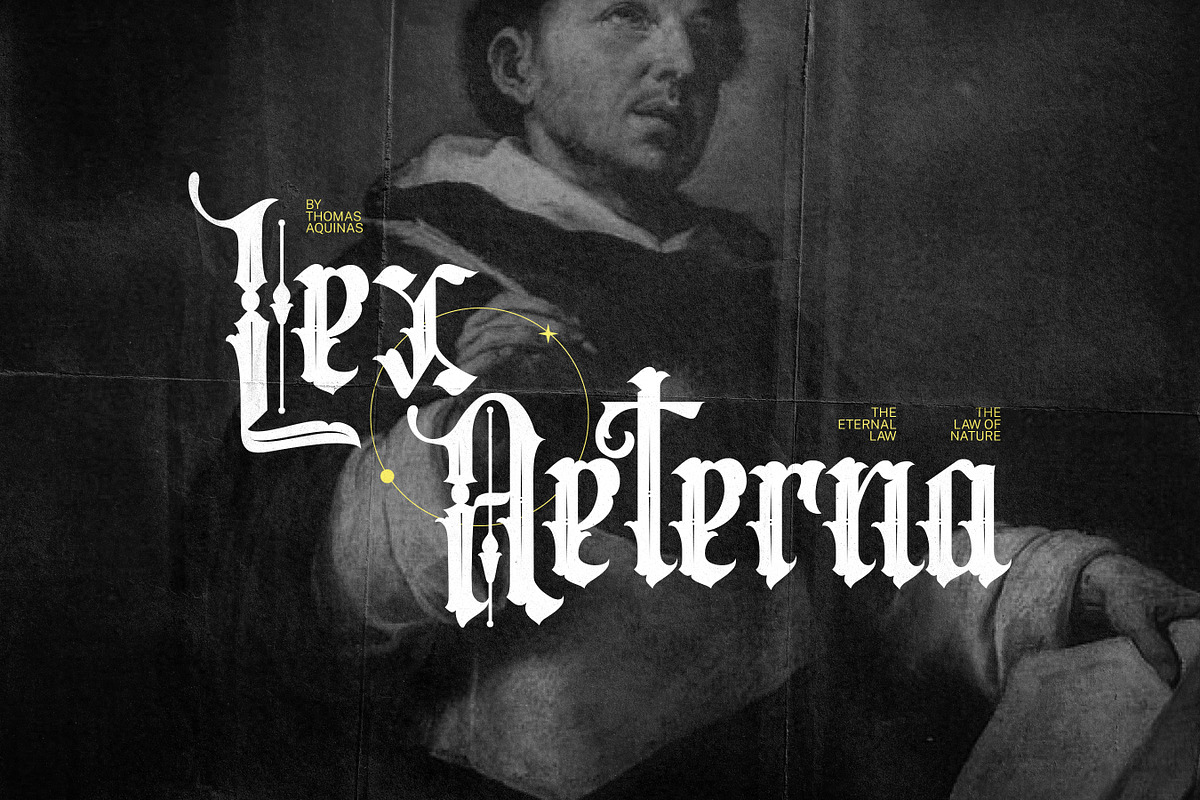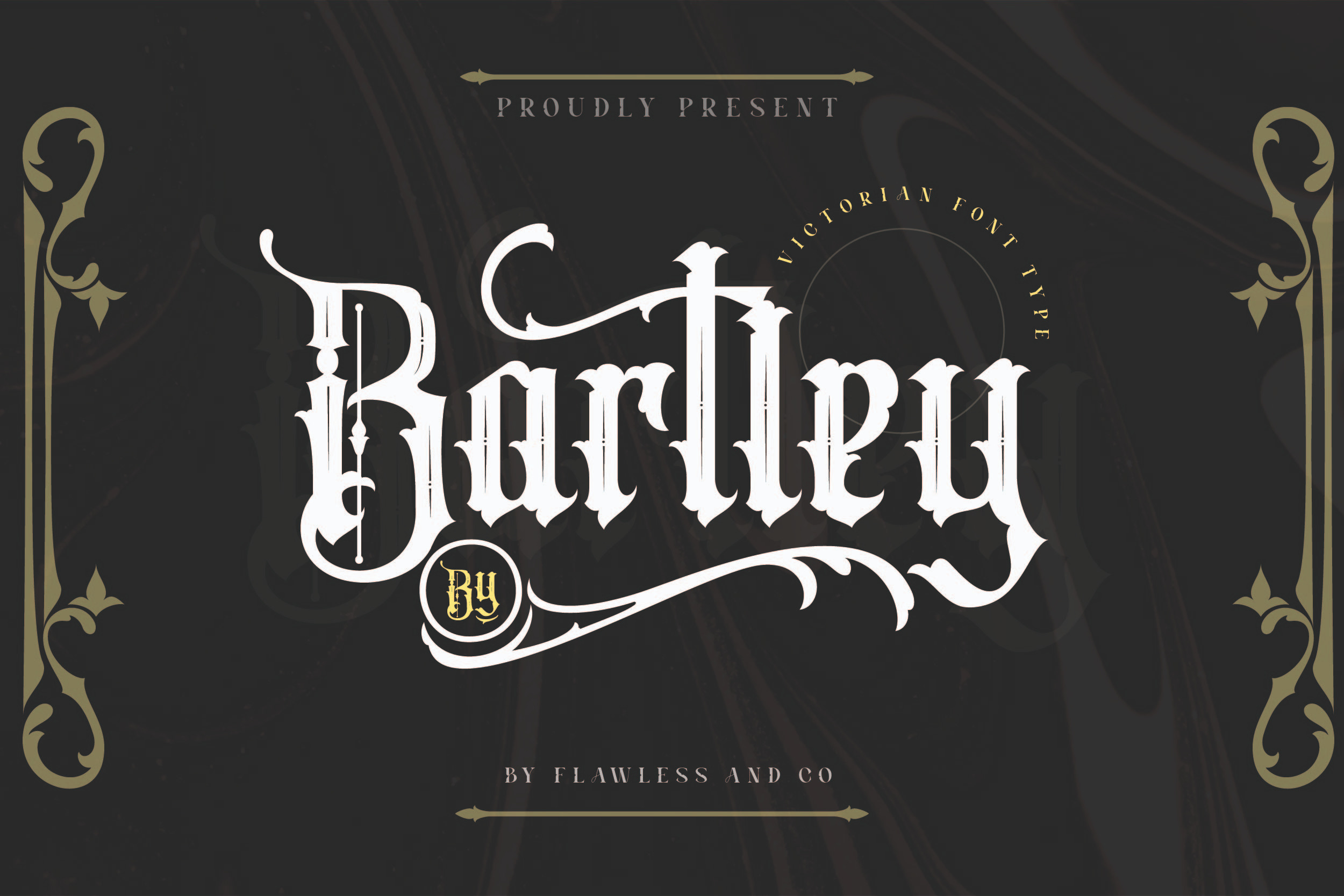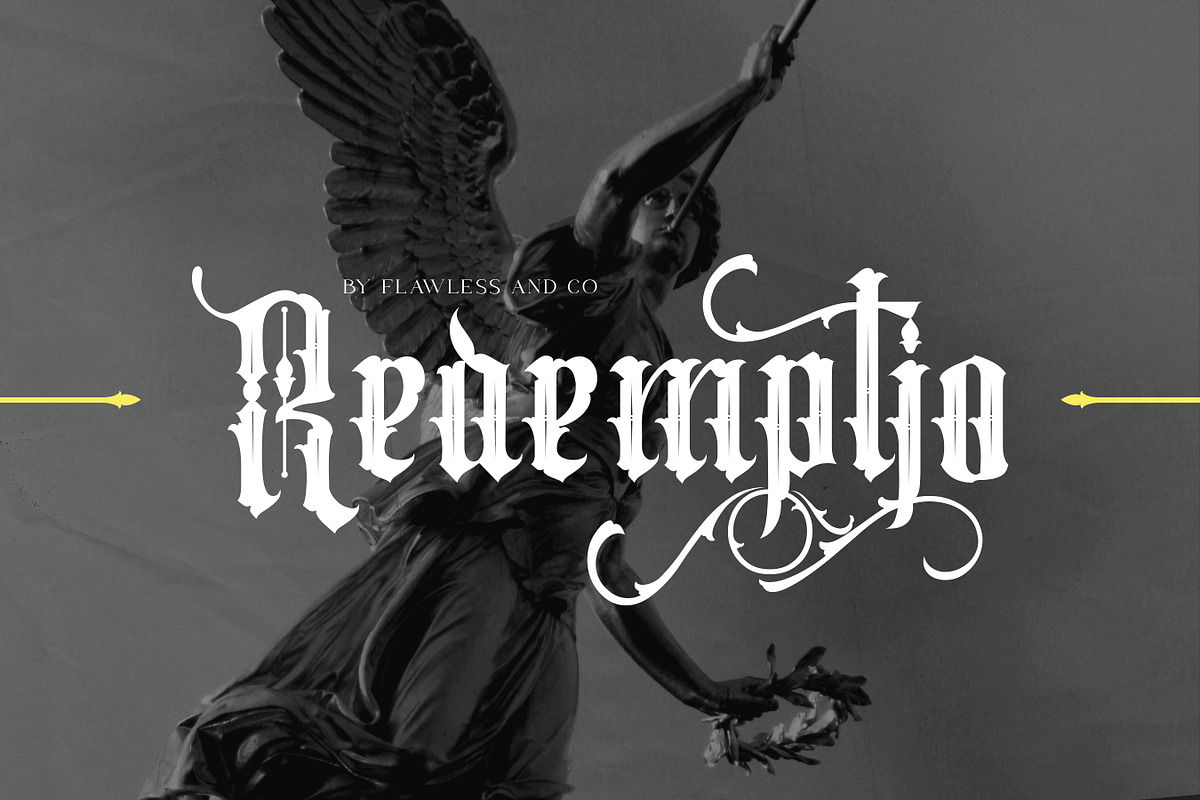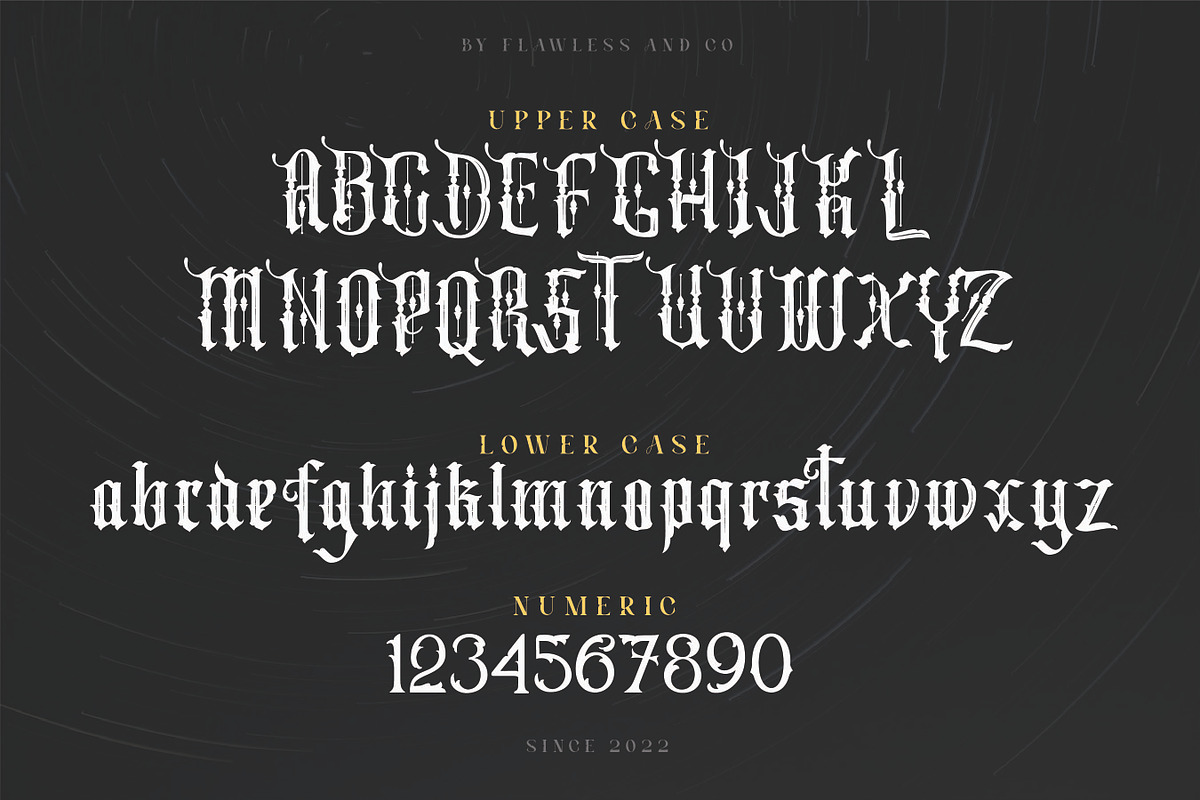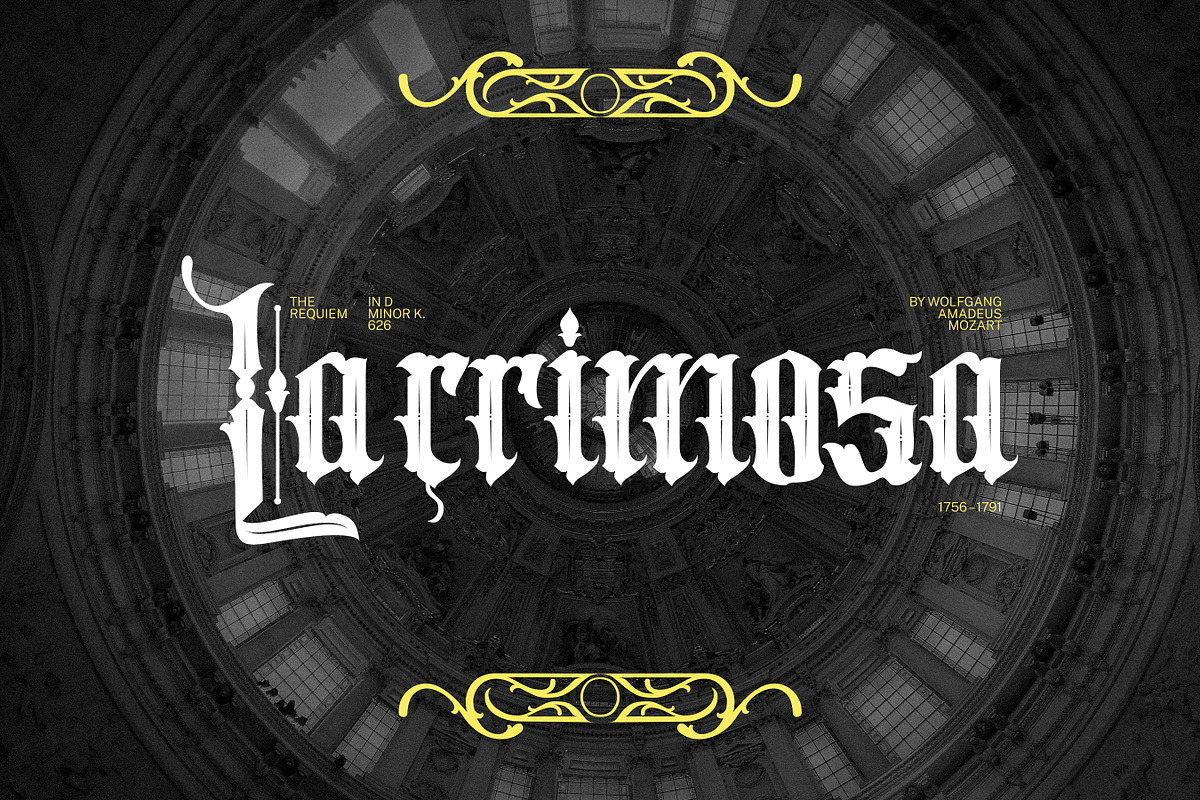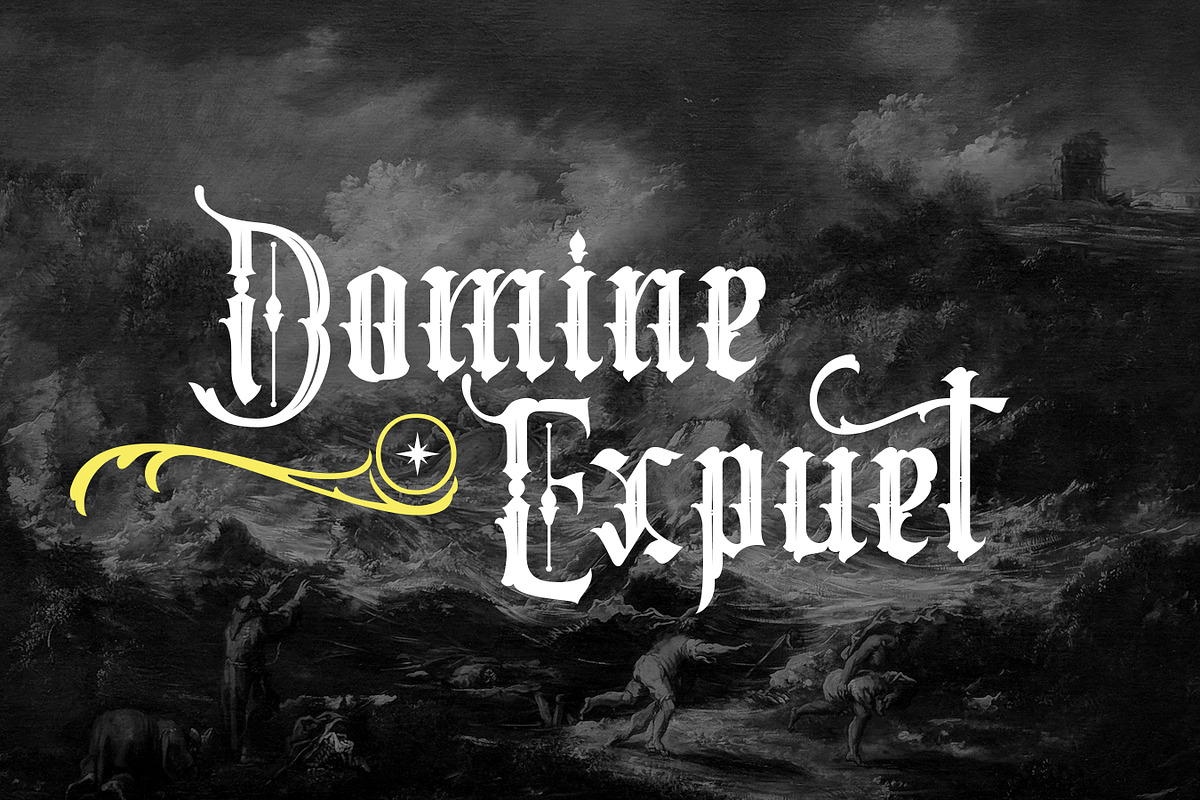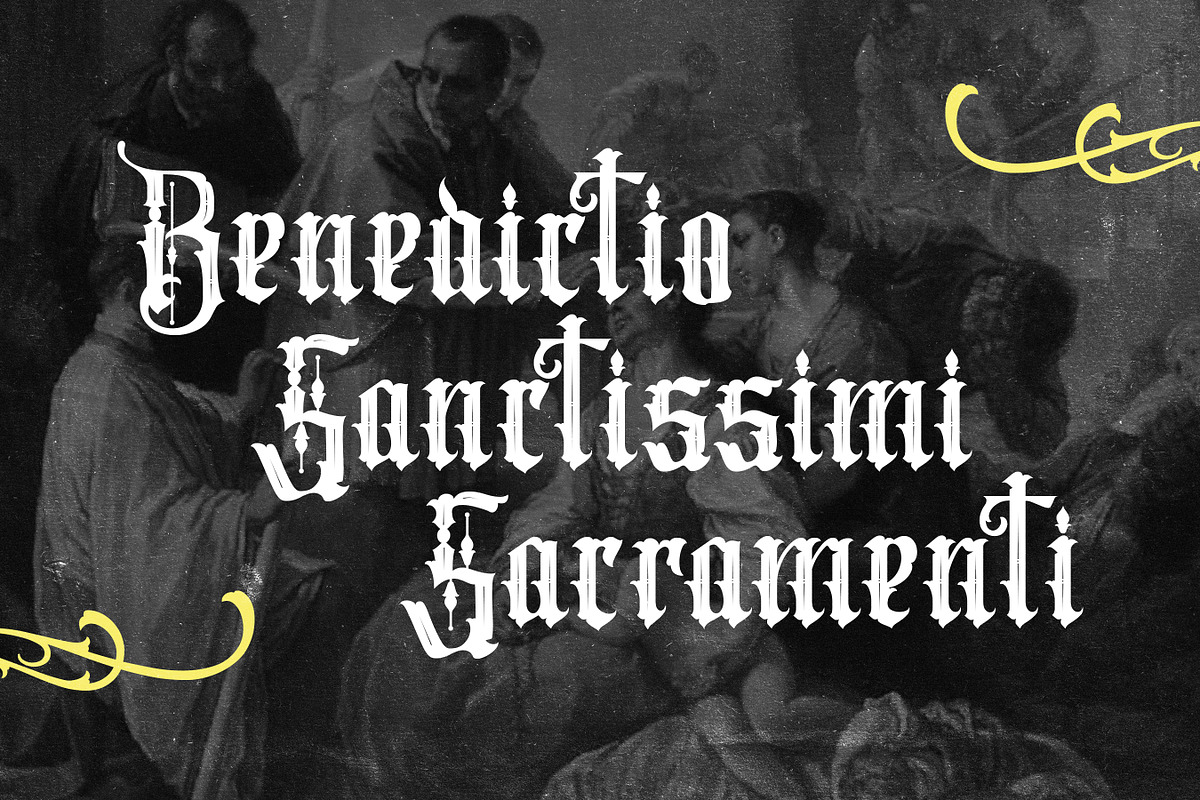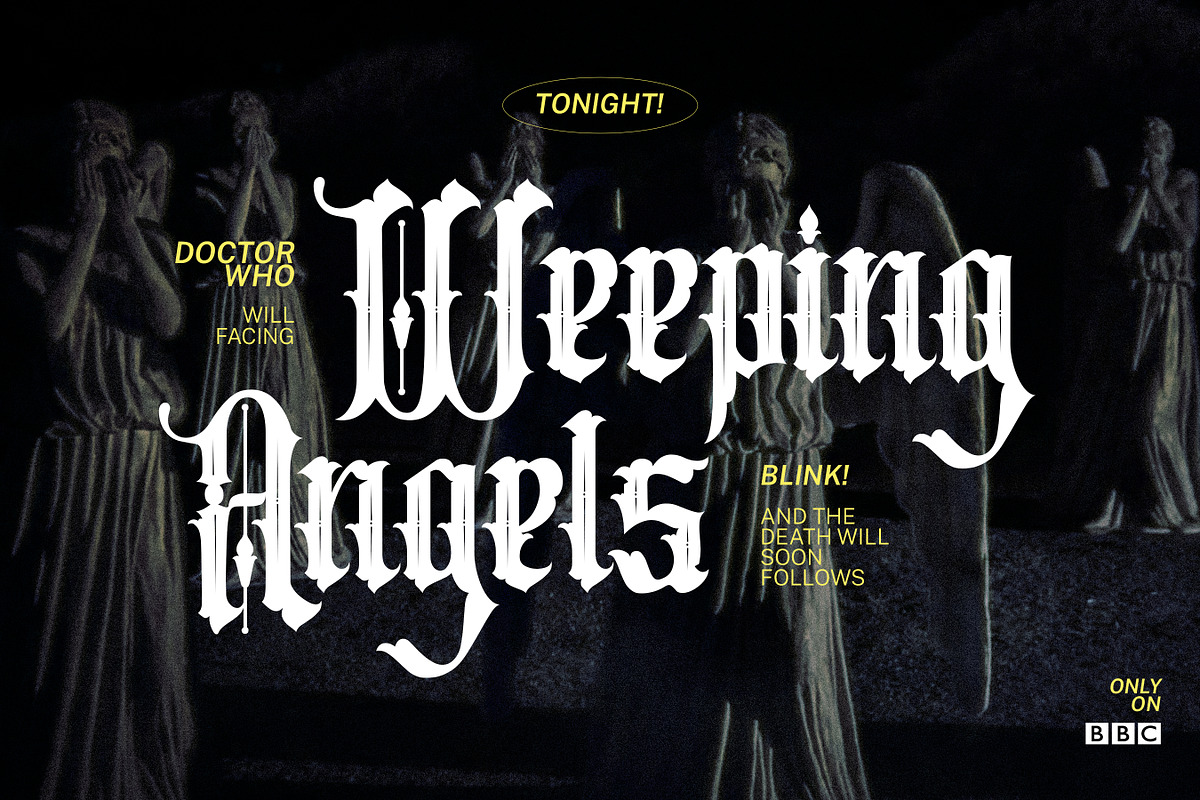
Bartley - Blackletter Font Type
Introducing our new "Bartley" Modern Blackletter Font with Elegant Style is perfect for your design
Multilingual Uppercase alphabet A-Z Lowercase alphabet a-z Alternate Character Numbers 0-9 Some punctuation